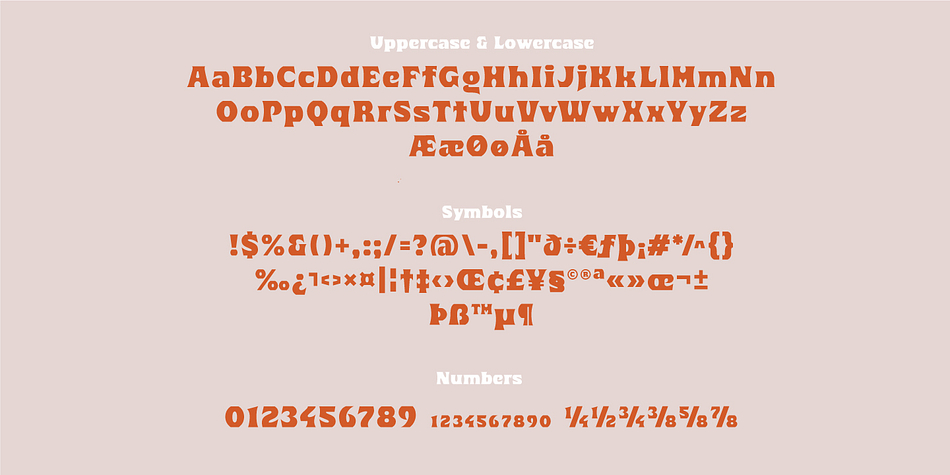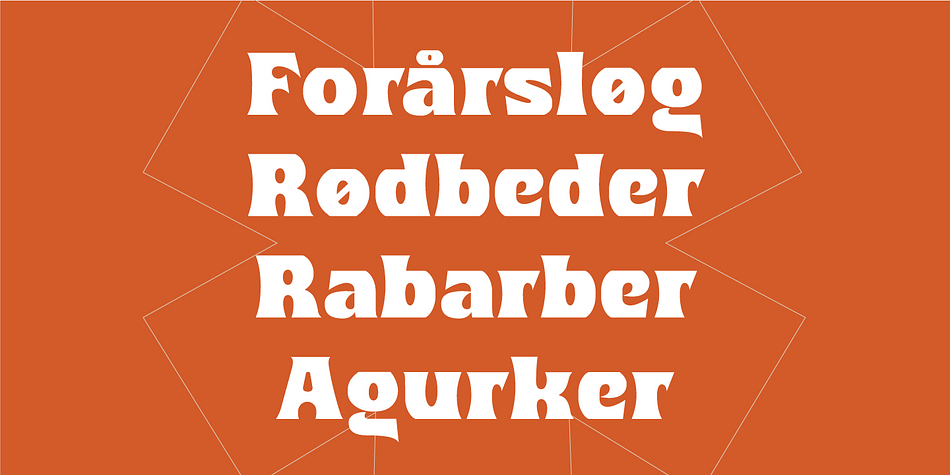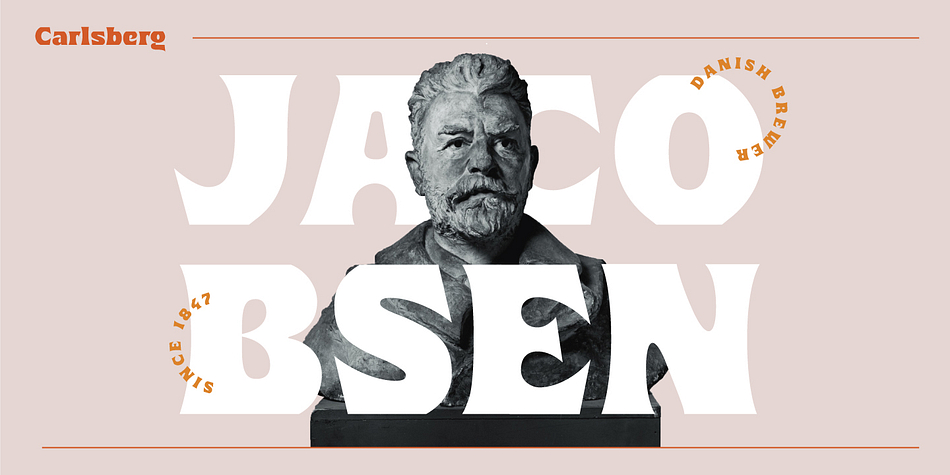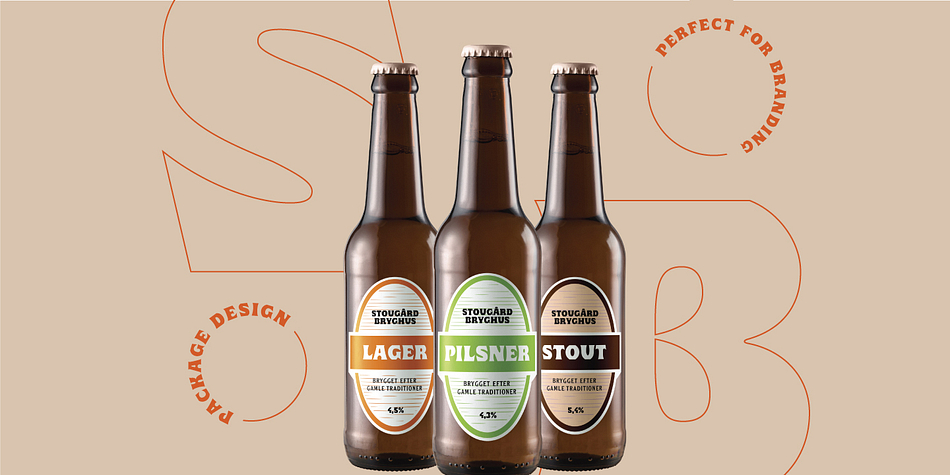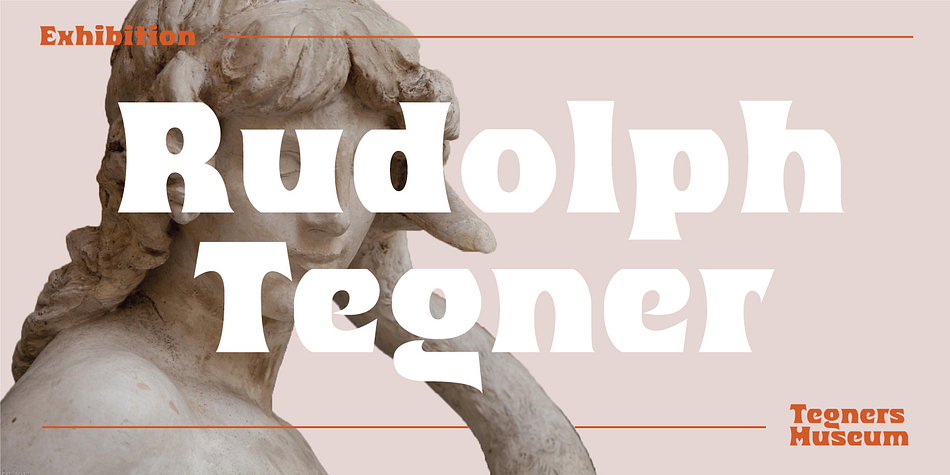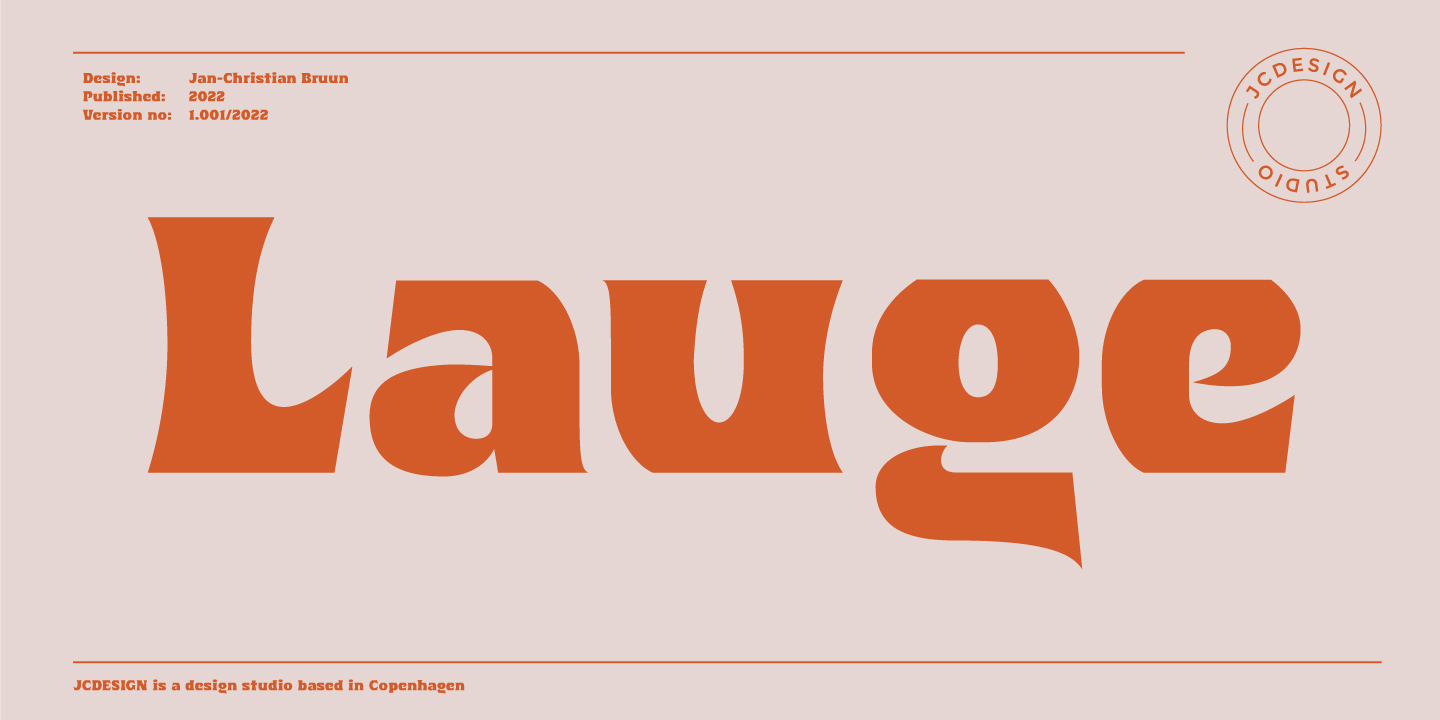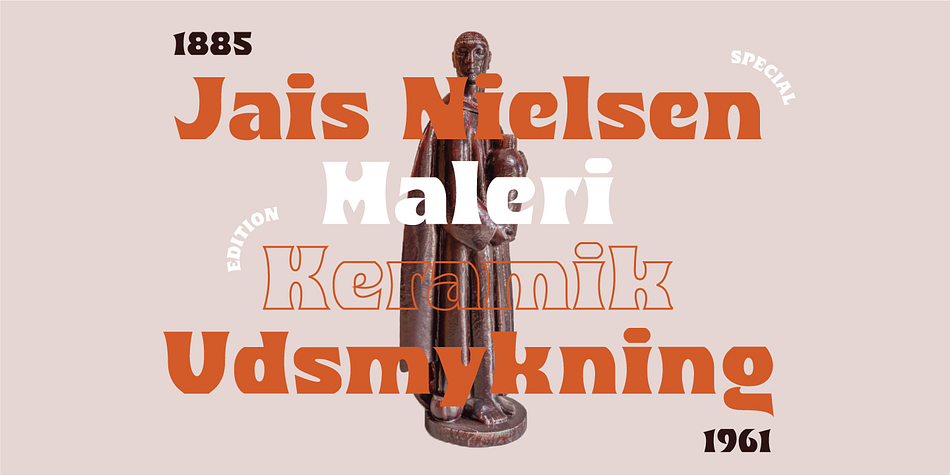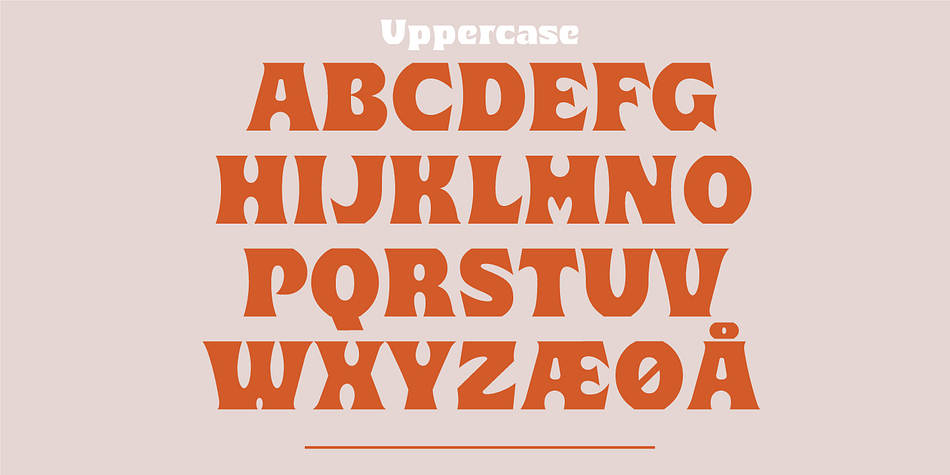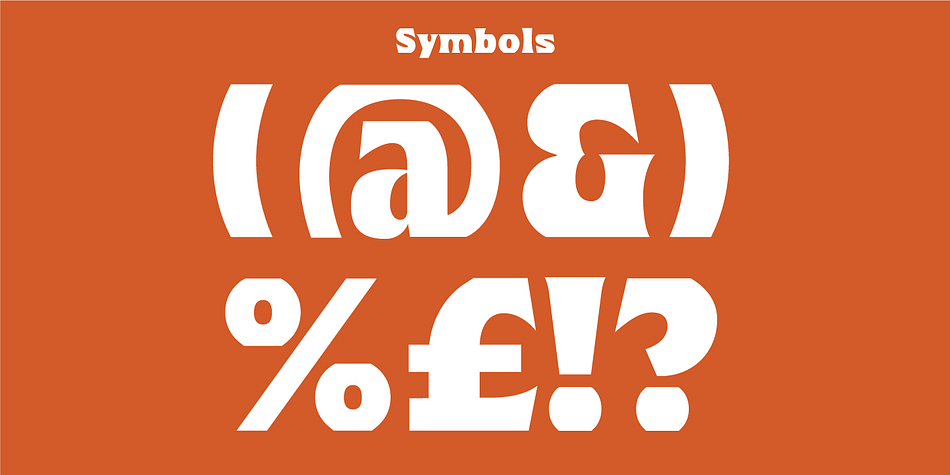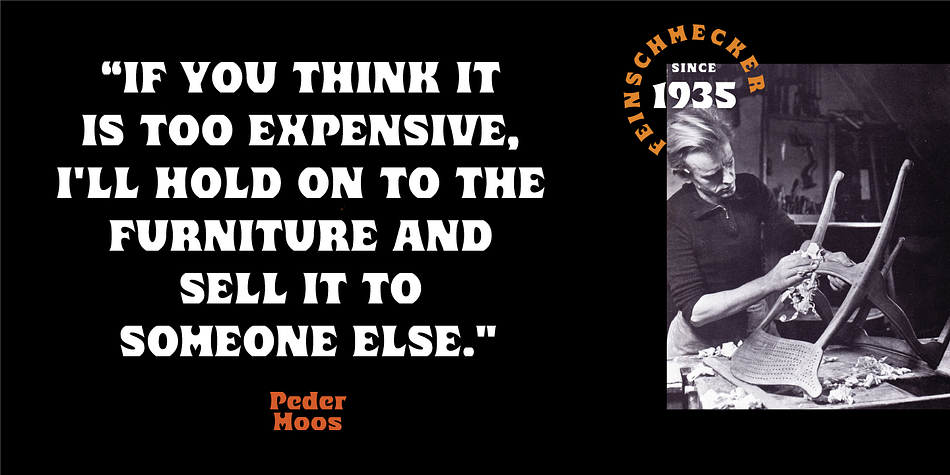
Lauge
Designed by Jan-Christian Bruun, Lauge is a display sans and retro font family published by JC Design Studio.
- Uppercase/Lowercase
- Numerals & Punctuations
- Accents (Multilingual characters)
Foundry JC Design Studio
Styles Display Sans, Retro
Designer Jan-Christian Bruun